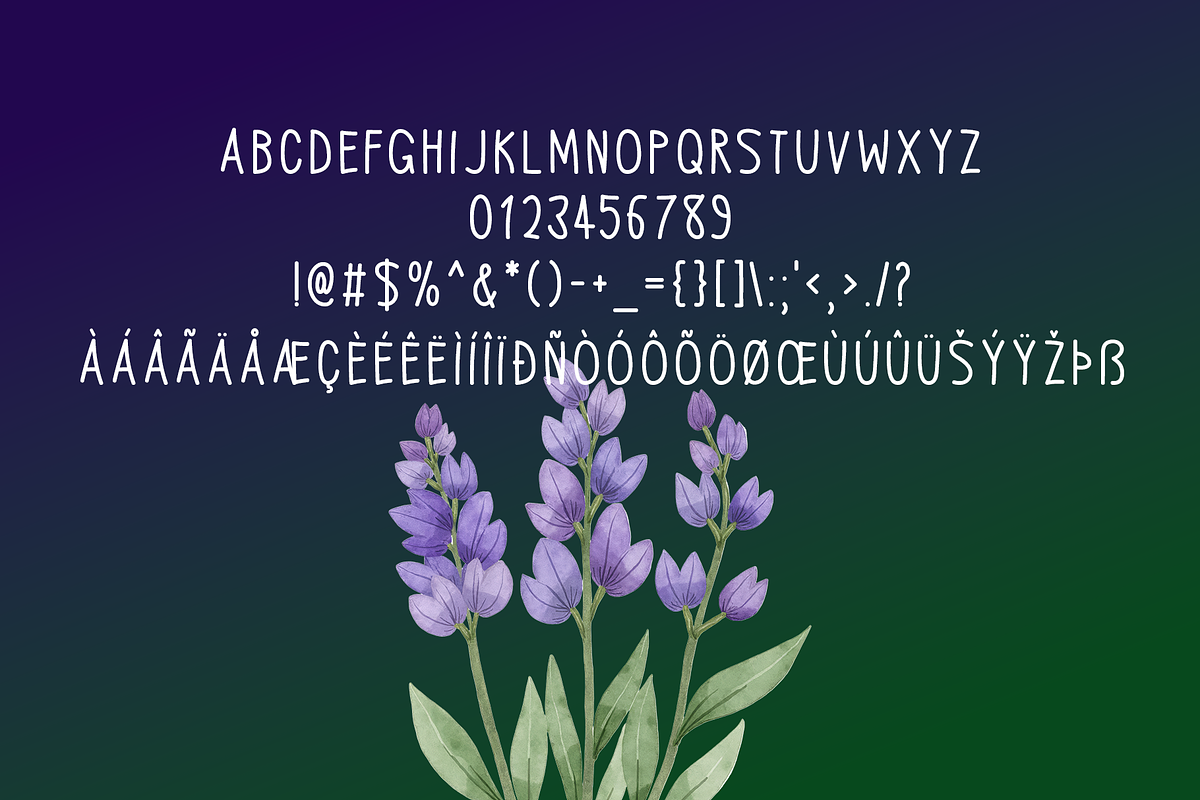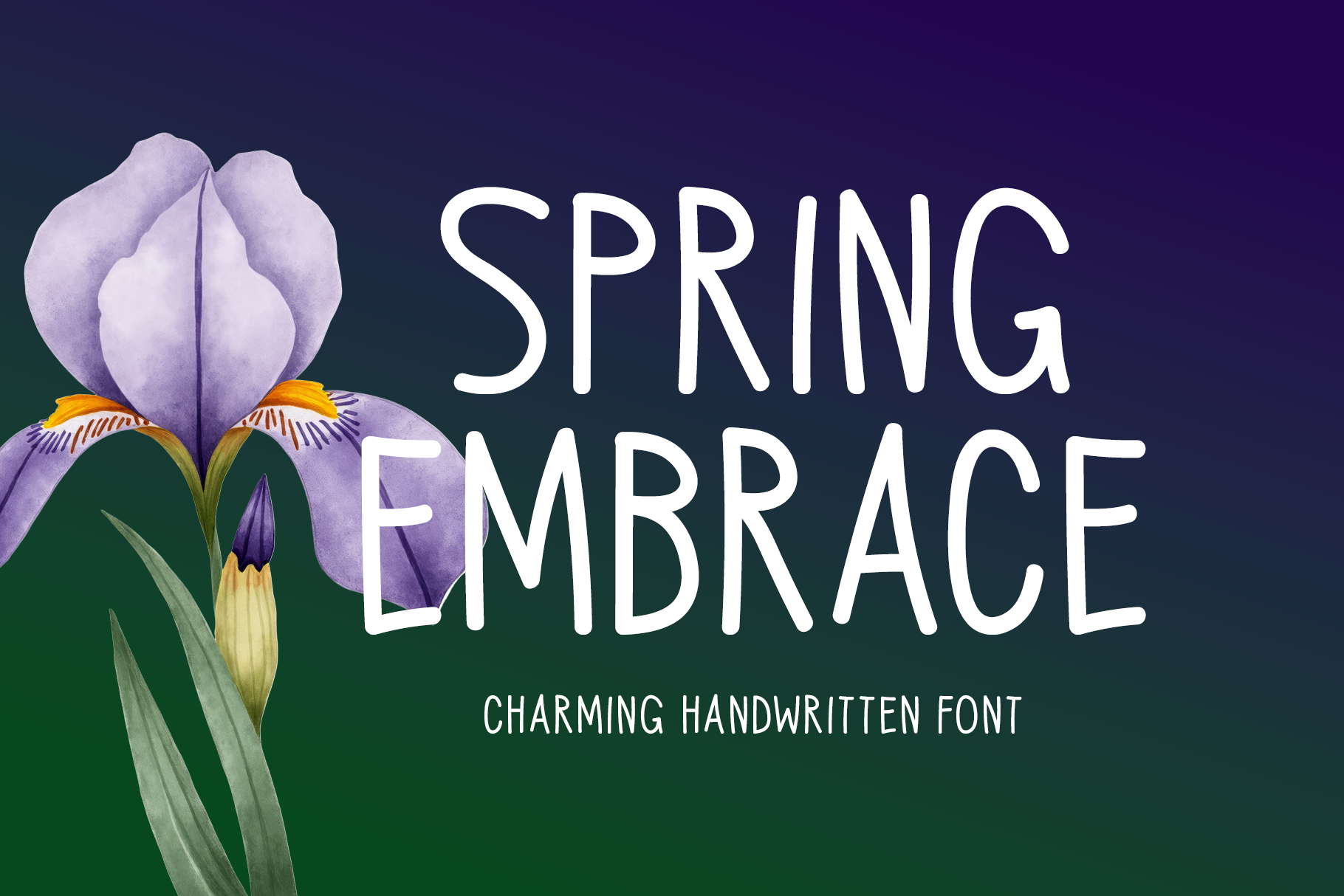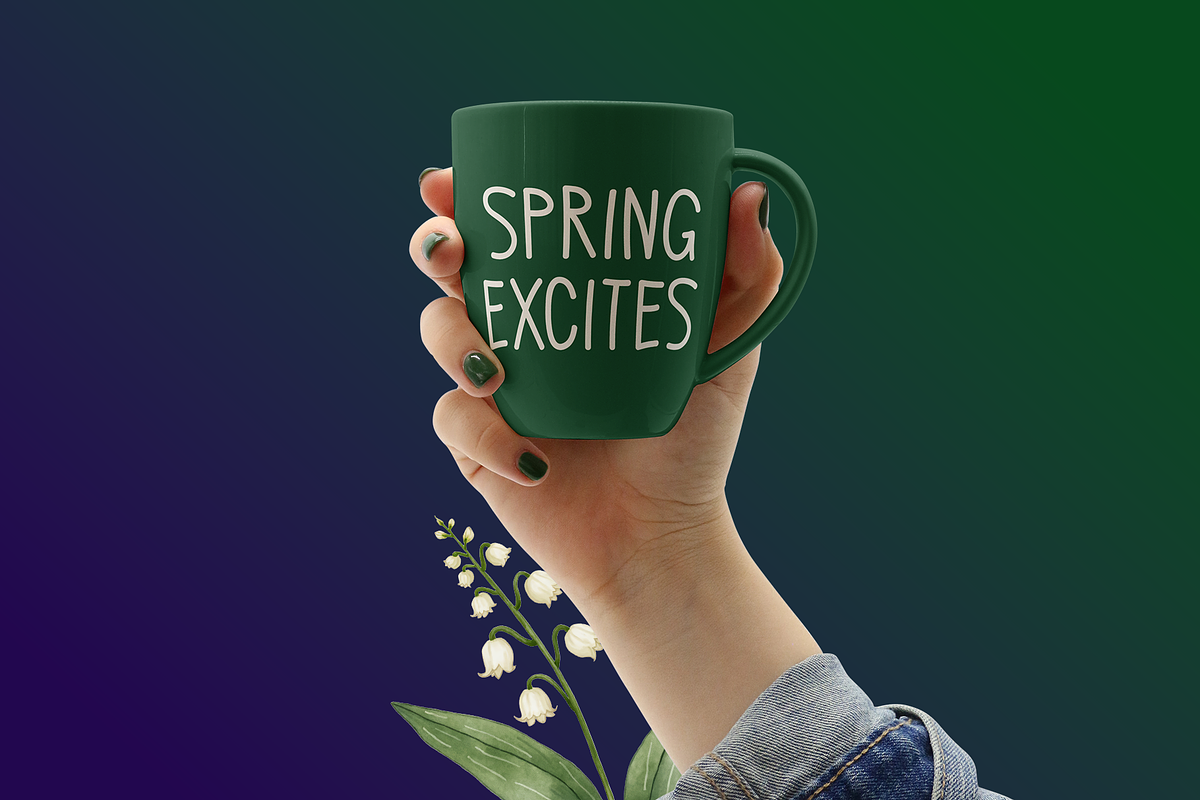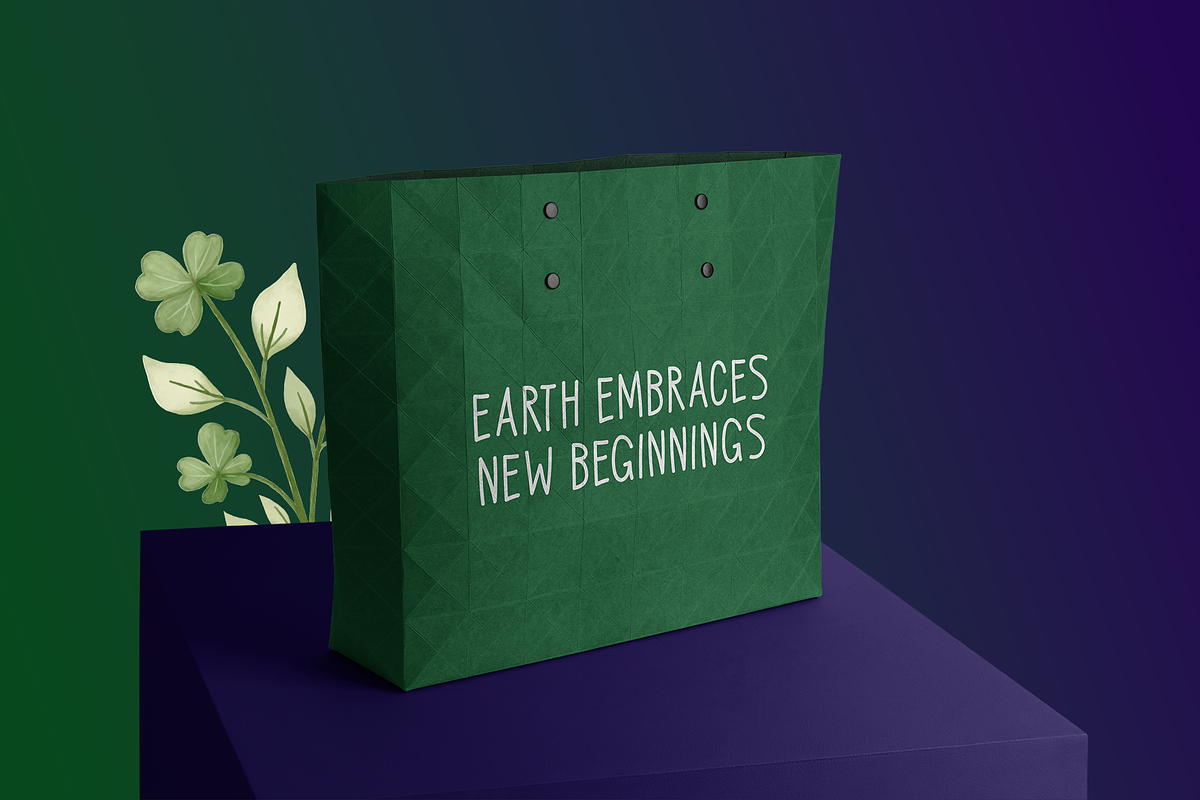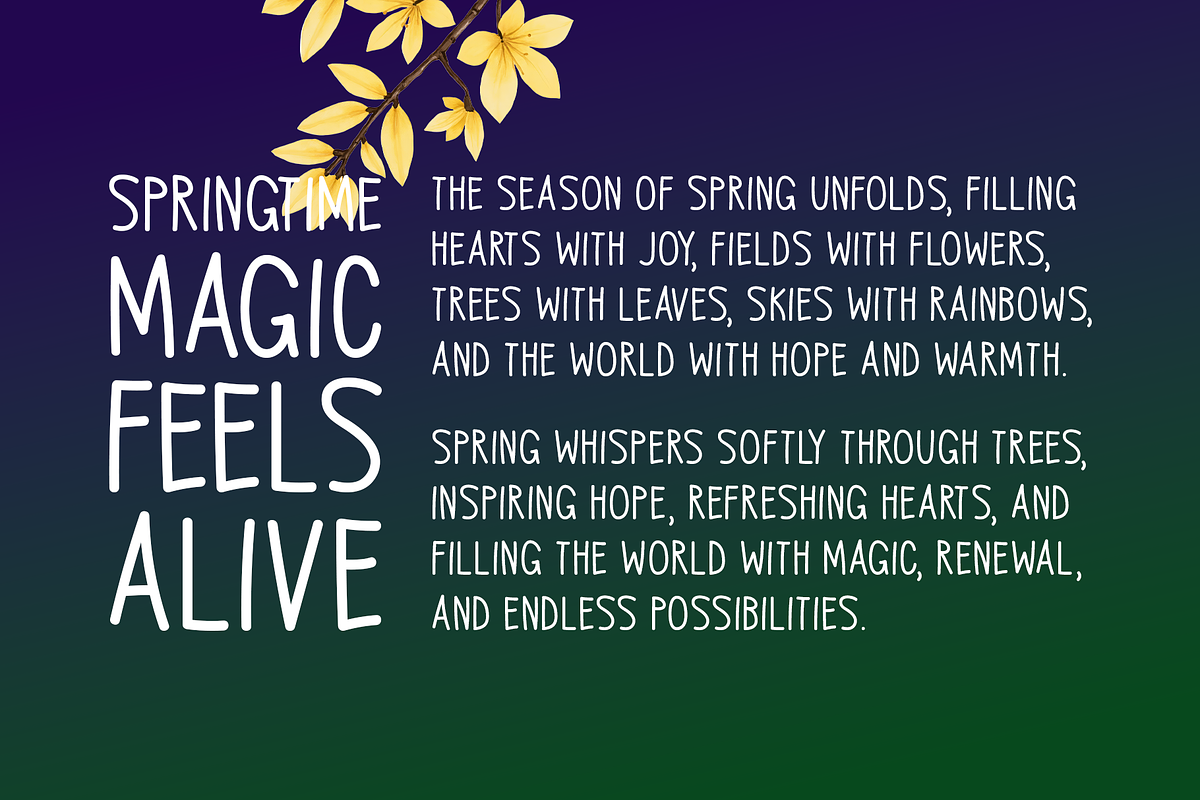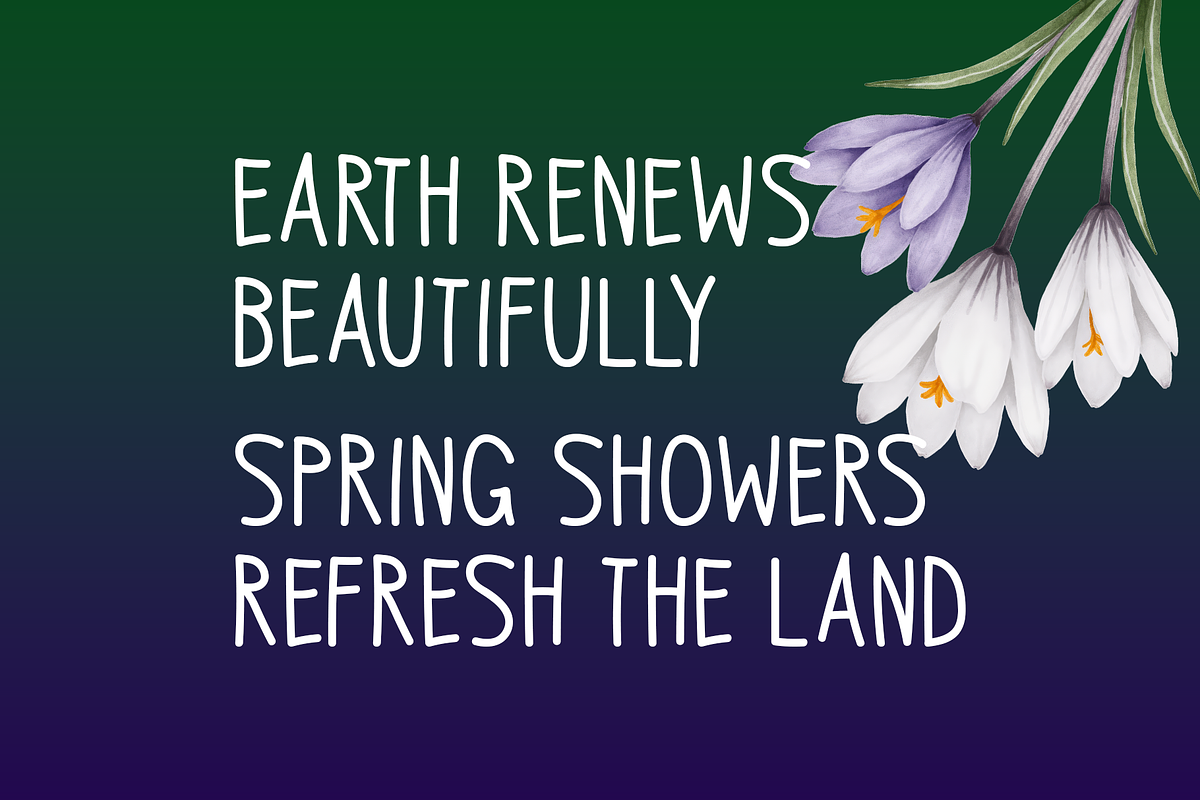
Spring Embrace Typeface
Introducing Spring Embrace!
Spring Embrace is a delightful handwritten font that exudes warmth and charm. With its soft, flowing strokes and natural appeal, this font is perfect for adding a personal touch to any creative project. Whether you’re designing stationery, logos, t-shirts, or stylish print materials, Spring Embrace enhances your work with elegance and authenticity. Ideal for website headers, posters, flyers, music covers, and more, this versatile font brings a sense of joy and creativity to your designs.
Includes a range of multilingual support